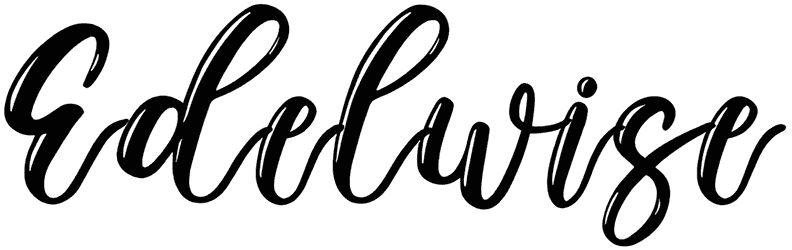
Edelwise Font
manuscript texts have always been one of the most popular options for designs, and choosing a specific pickup can make your layout more impressive. As a handwritten font, Edelwise reflects a timeless and classic vibe and could be a captivating form for many ideas. Embed this smooth brush font on your upcoming projects like posters, cards, logos, or sundries, and give them a cheerful vibe.